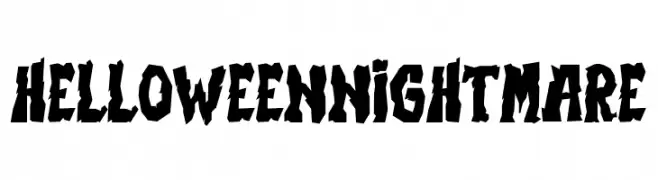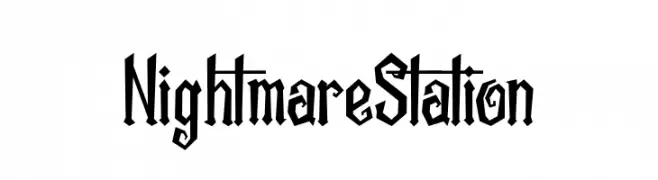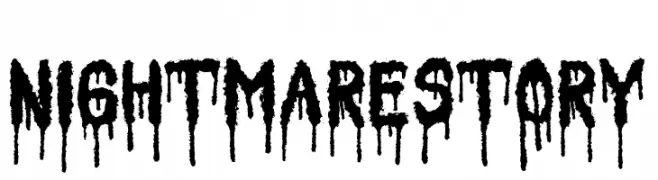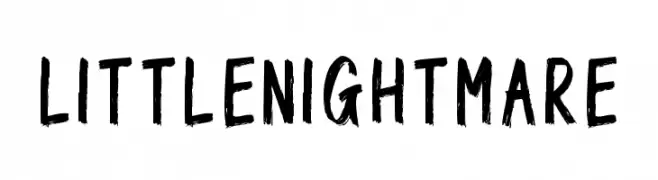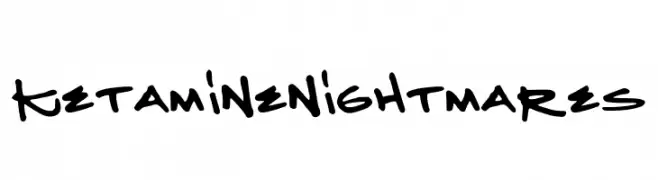
A bold, jagged font with an eerie, horror-inspired design.
A bold, gothic-inspired font with sharp, angular lines and a dramatic style.
A dripping, eerie font perfect for horror themes.
A playful, spooky handwritten font with bold, rounded strokes.
A spooky, dripping font ideal for Halloween themes.
A dripping, horror-themed font perfect for spooky designs.
A bold, hand-drawn font with a brush-like texture and dynamic style.
A bold, handwritten font with a playful and energetic style.
A playful, bold handwritten font with a lively and informal style.
A dramatic, horror-themed font with jagged, irregular edges and tight spacing.